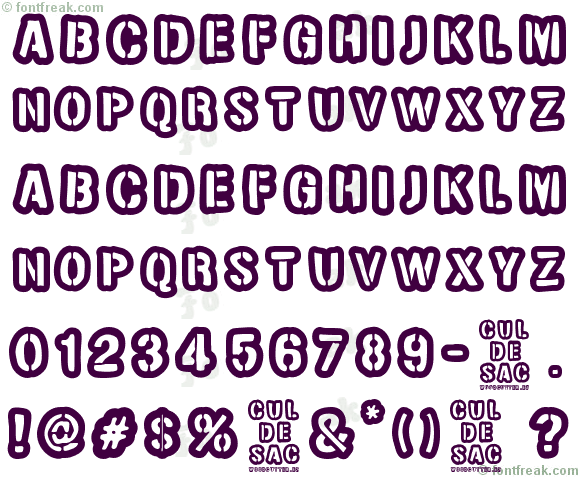
Cul de sac
About Cul de sac
Cul de sac, designed by woodcutter Manero, is a unique and playful display typeface that embodies a sense of whimsy and creativity. It falls into the decorative category, characterized by its thick, rounded letterforms that invite a friendly and approachable feel. The font features a consistent stroke weight, contributing to its bold presence, while its slightly irregular edges add a handmade touch, making it feel organic and fun. The spacing between characters is generous, enhancing readability and allowing each letter to stand out distinctly.
This typeface is ideal for a variety of creative projects. It shines in applications such as children's book covers, where its playful nature can capture the imagination of young readers. Additionally, Cul de sac is well-suited for event invitations, particularly for casual gatherings like birthday parties or community events, where a light-hearted tone is desired. Restaurant menus can also benefit from this font, providing a welcoming vibe that reflects a friendly dining experience. Furthermore, it can be used effectively in branding for artisanal shops or craft businesses, where a personal touch is essential to connect with customers.
What sets the Cul de sac font apart is its unique blend of boldness and playfulness, making it an excellent choice for anyone looking to make a statement. Its charming aesthetic and versatility make it a standout option in the world of decorative typefaces.